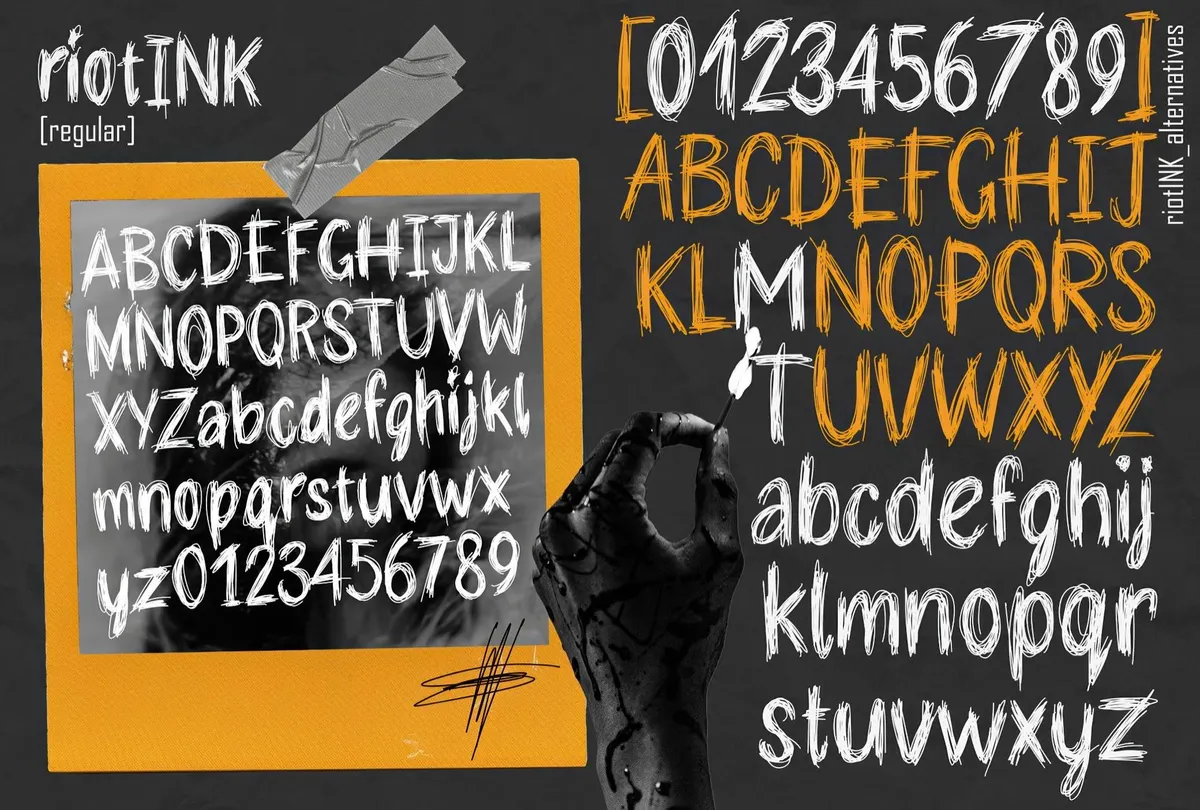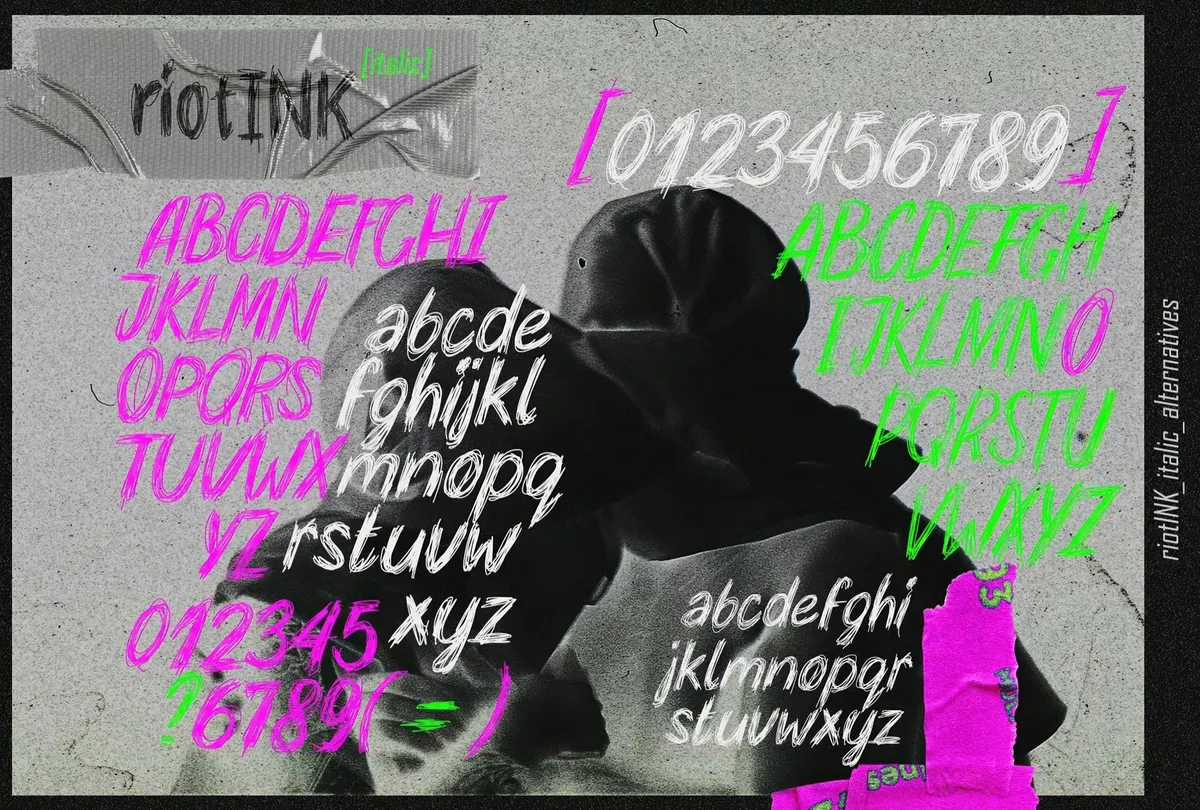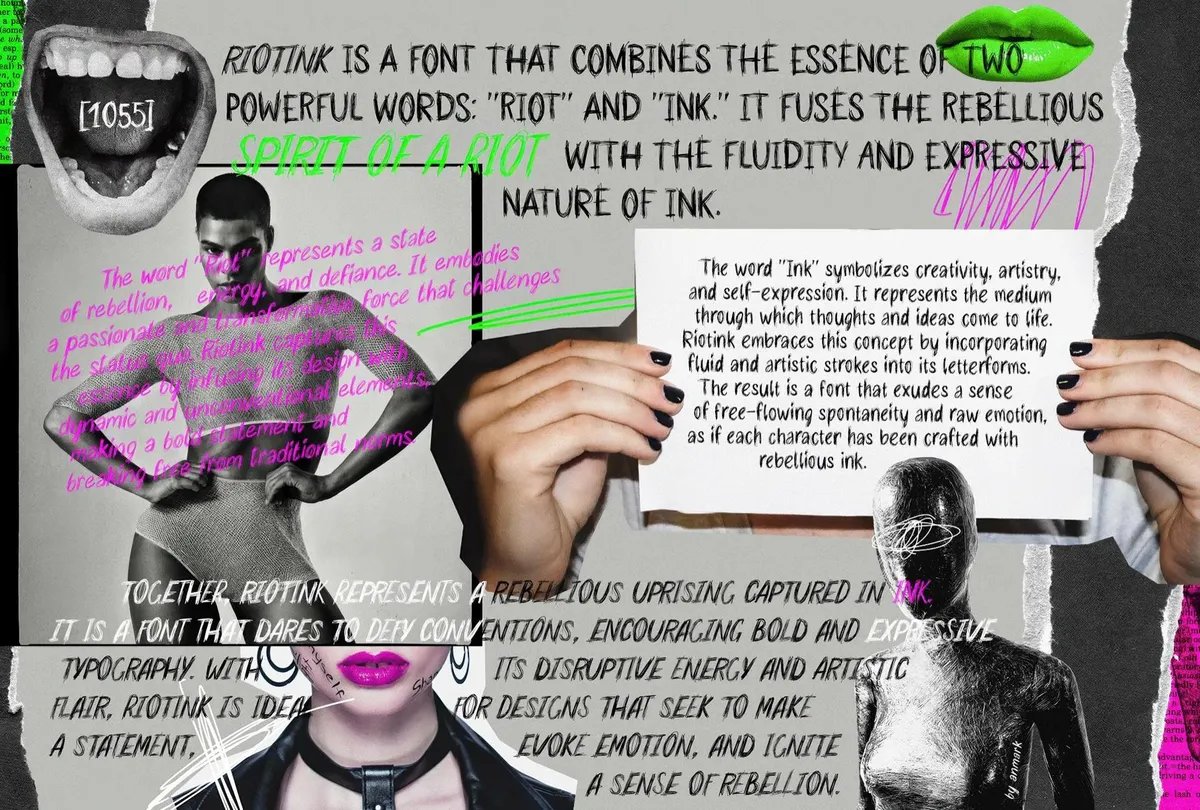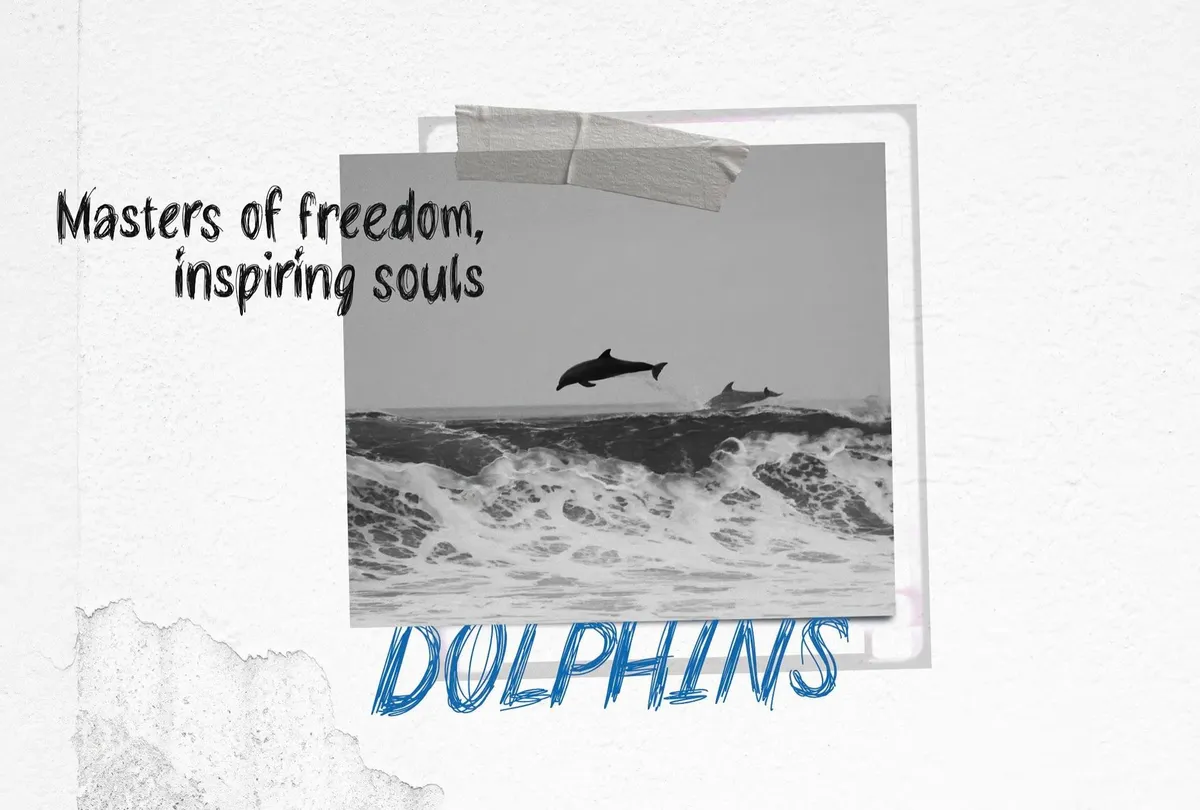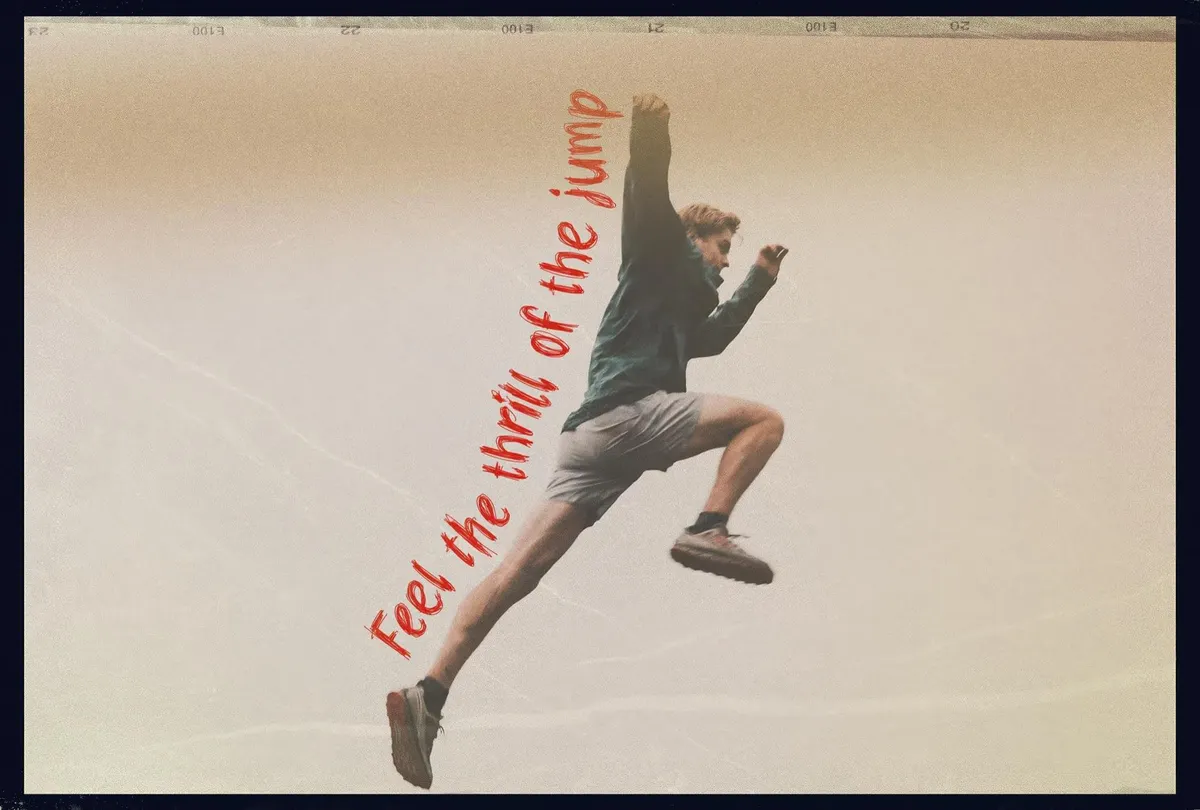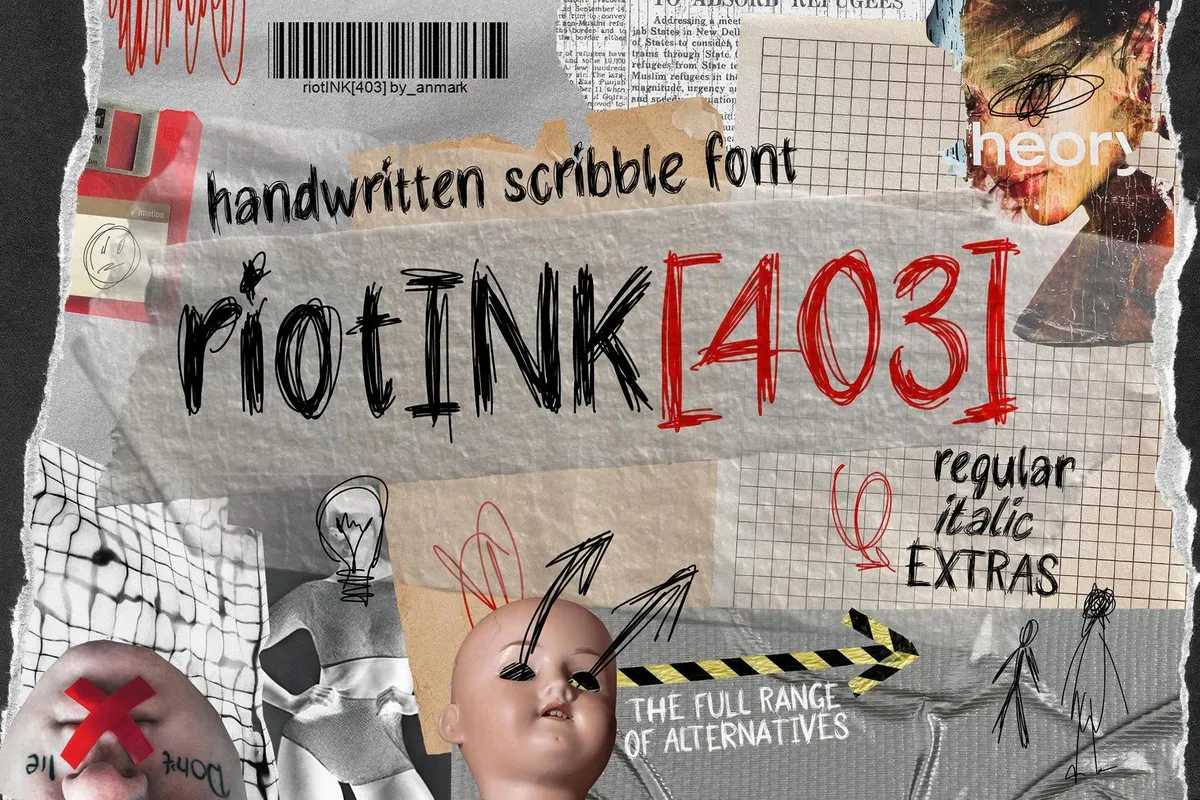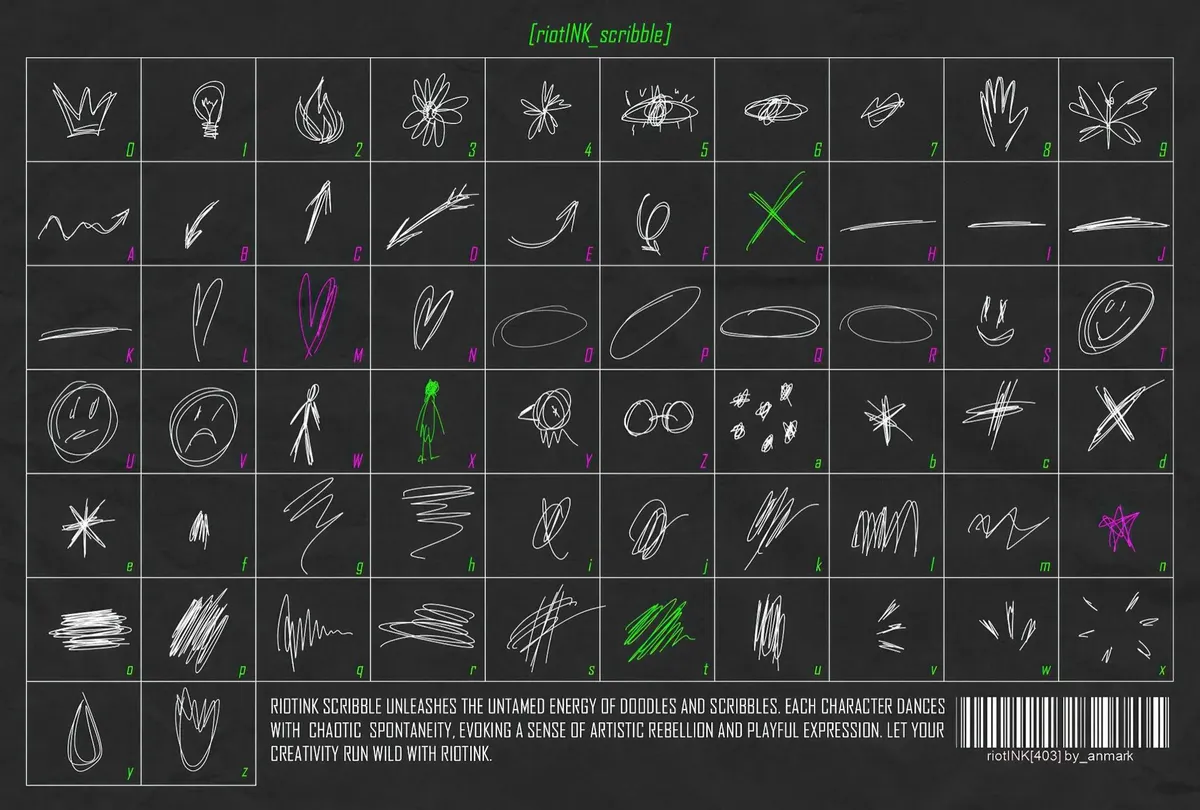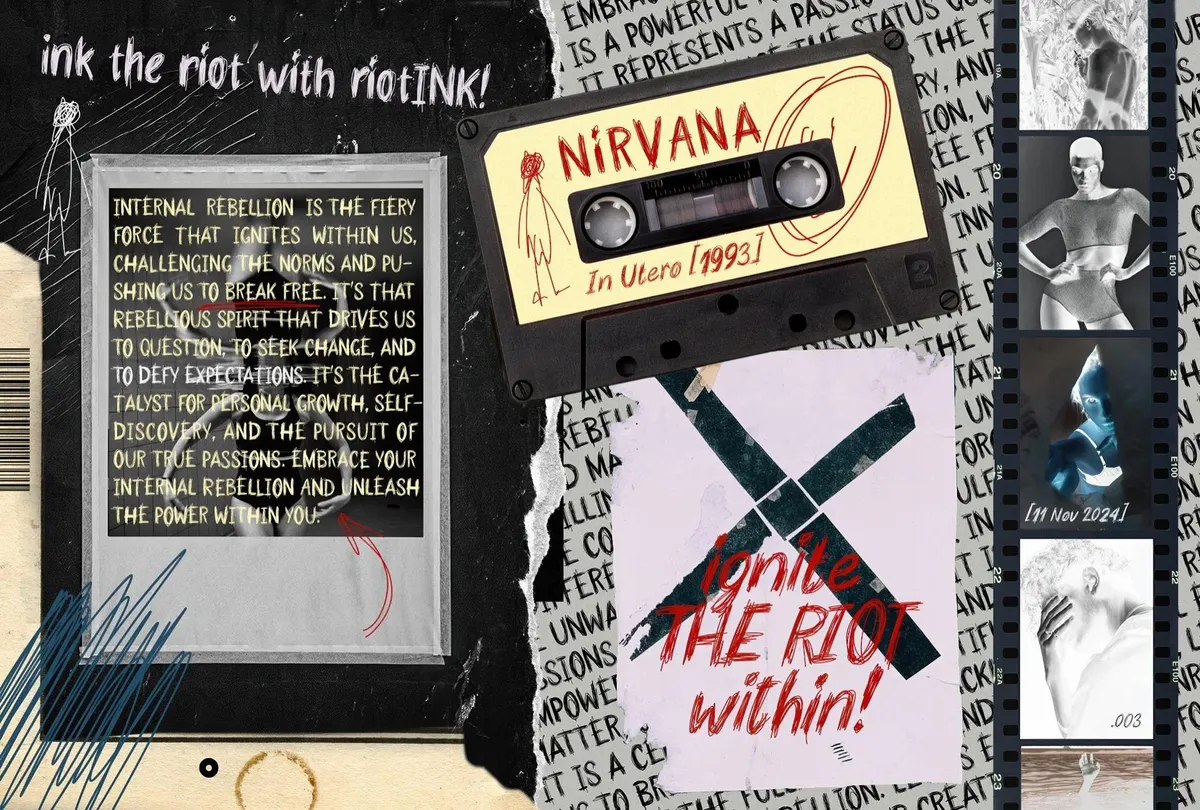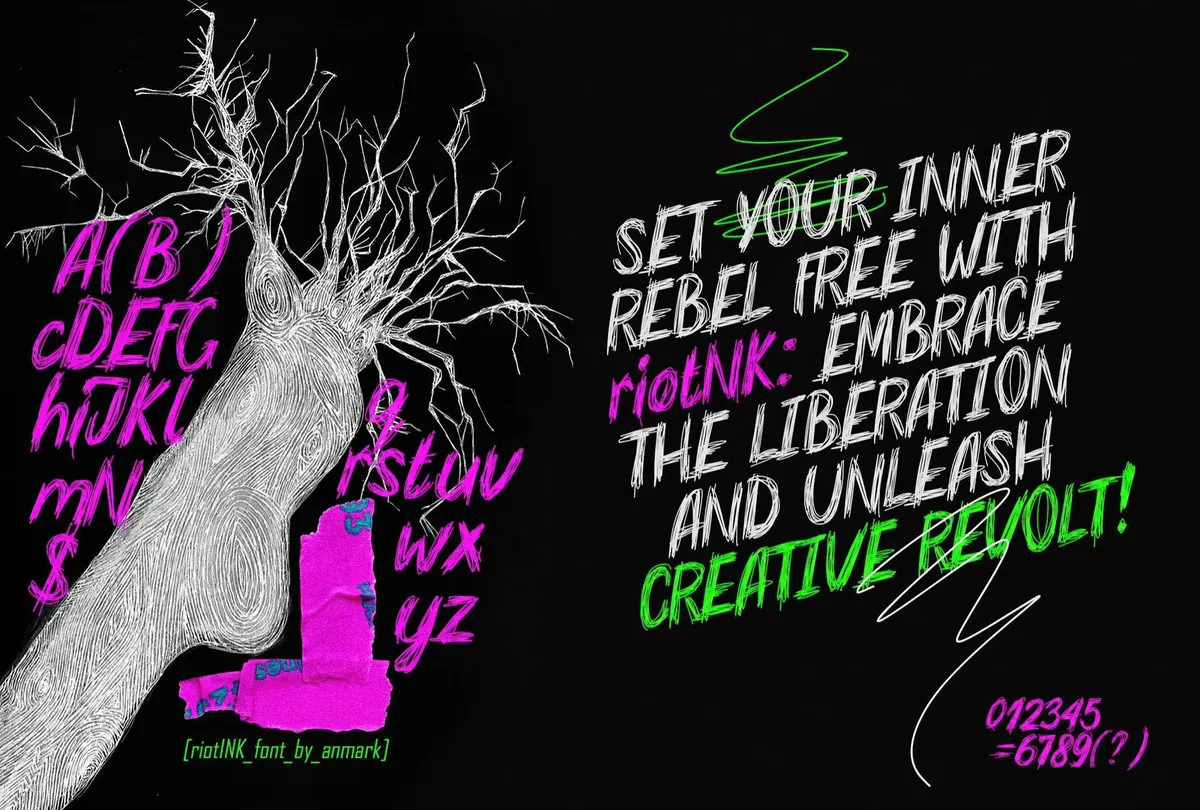
RiotINK. Handwritten Scribble Font
Meet RiotINK, the font that looks like it just kicked down the door of conventional typography and left a trail of ink-stained chaos behind.
RiotINK snarls at conformity, tearing through the monotony of clean lines and perfect curves. Its scribbled chaos feels ripped from the margins of a notebook in the middle of a restless night. It has 3 distinct styles: regular, italic, and a wild scribble variant. Inspired by the unpredictability of street art and the electric pulse of zine culture, this font turns chaos into design gold.
The set of glyphs of regular and italic versions are pretty standard — upper and lower case letters, numerals, and punctuation. But when it comes to scribble style, the set just shreds traditional letterforms with anarchic doodles, making the font a godsend for music album covers, grungy posters, or unconventional branding with a DIY attitude.